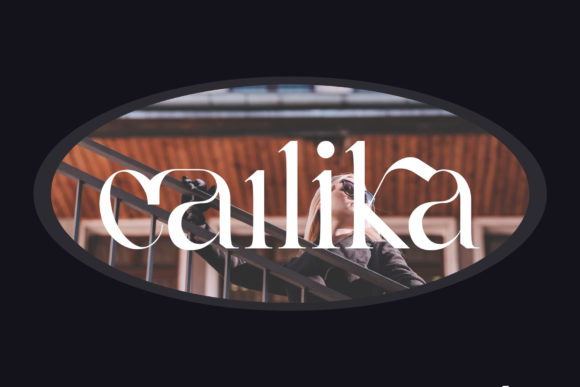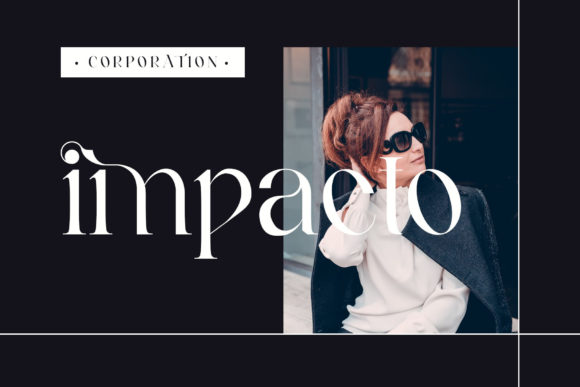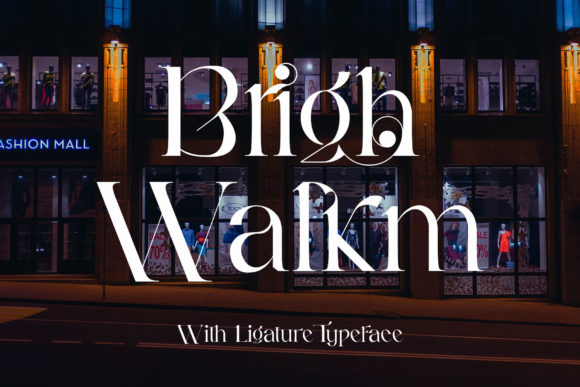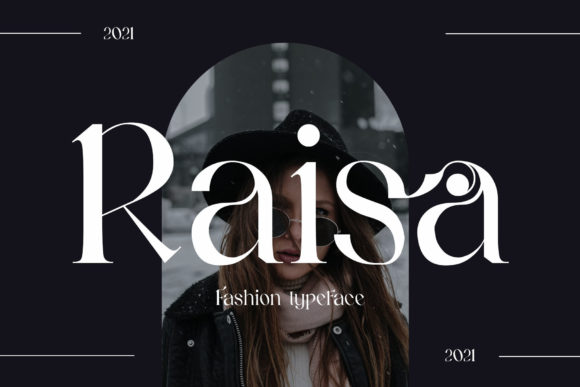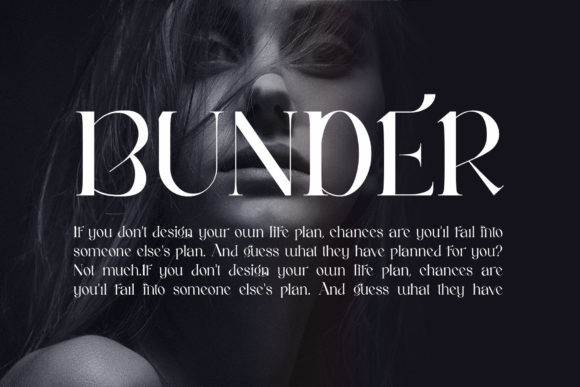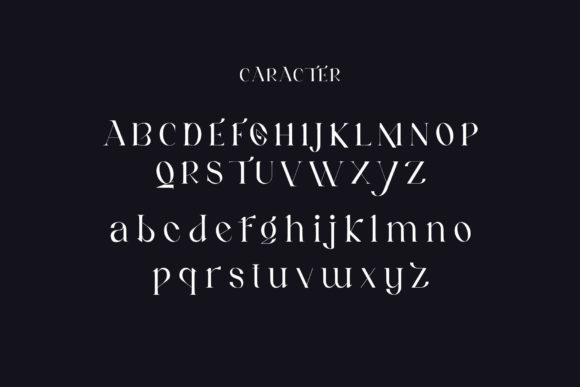
Introduction to Kariin Font
Kariin is a trendy and stylish serif font.
It is PUA encoded which means you can access all of the glyphs and swashes with ease Add it confidently to your favorite creations and let yourself be amazed by the outcome generated.
Key Features of Kariin Font